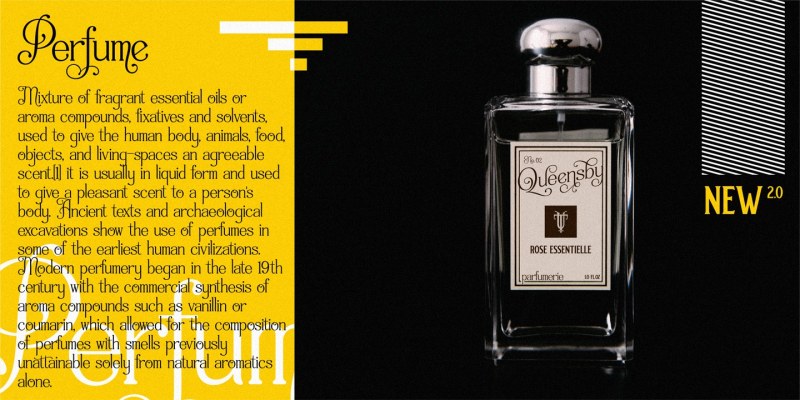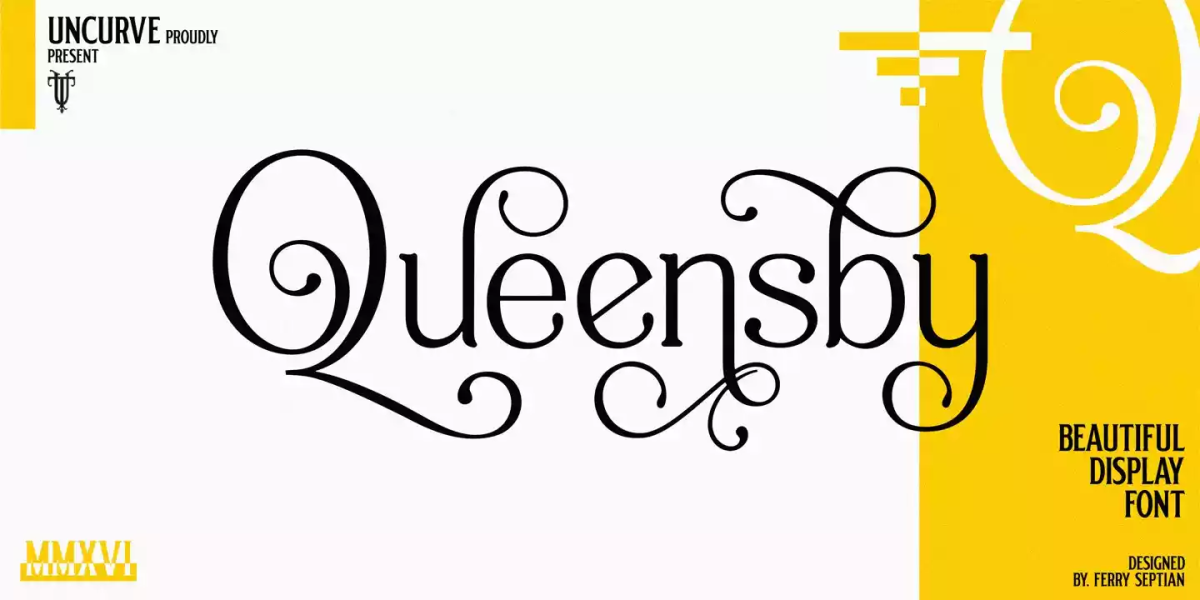
Queensby Font
Queensby is a unique modern serif font with tons of alternates, to use in such place as headlines. You can mix and match to find something different. Queensby is perfect for advertising, magazines, editorial, posters, branding, logo type, headers, titles, packaging, displays and more.
Queensby Font is a Serif Fonts font that brings a professional and versatile look to your projects. Queensby is a unique modern serif font with tons of alternates, to use in such place as headlines.